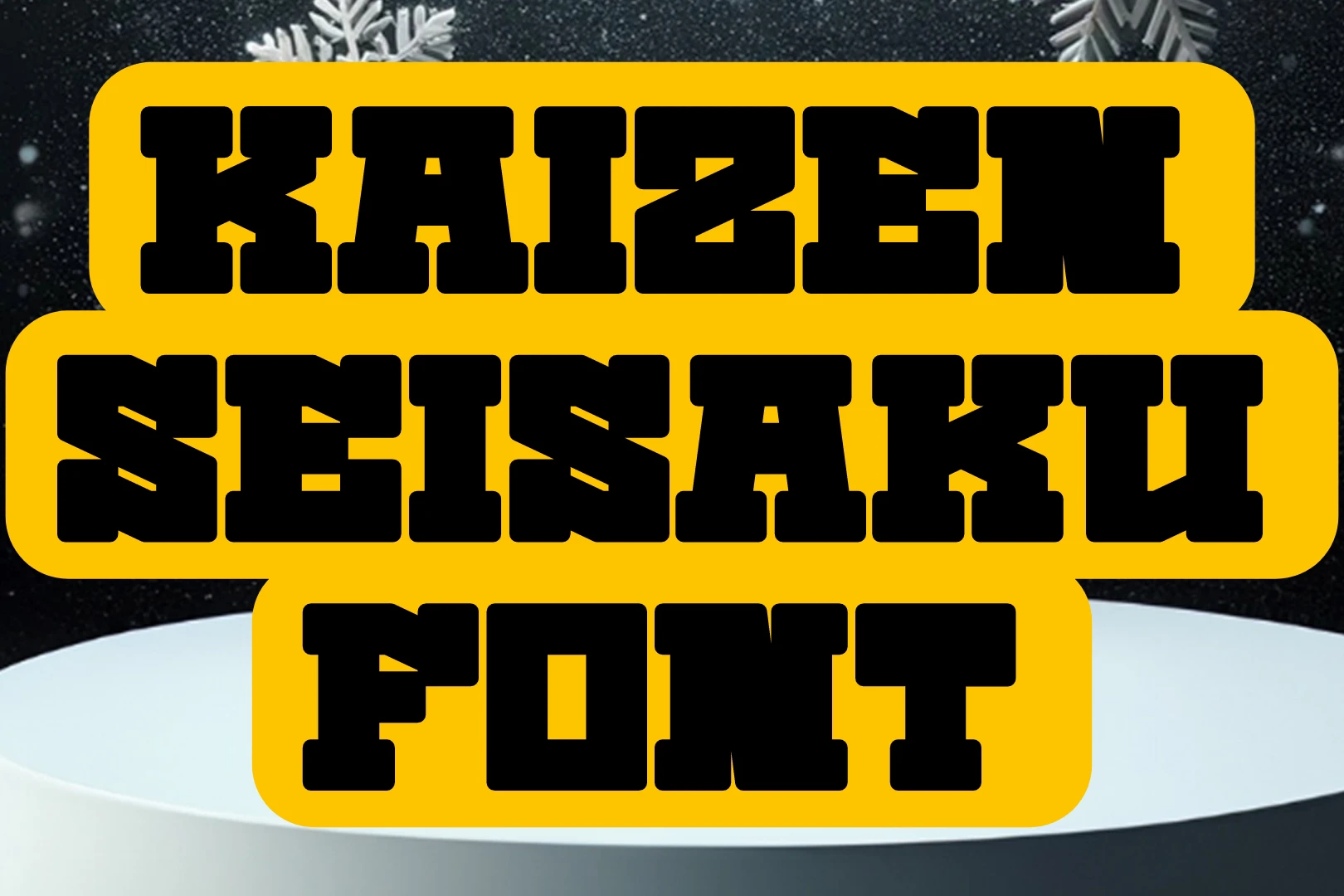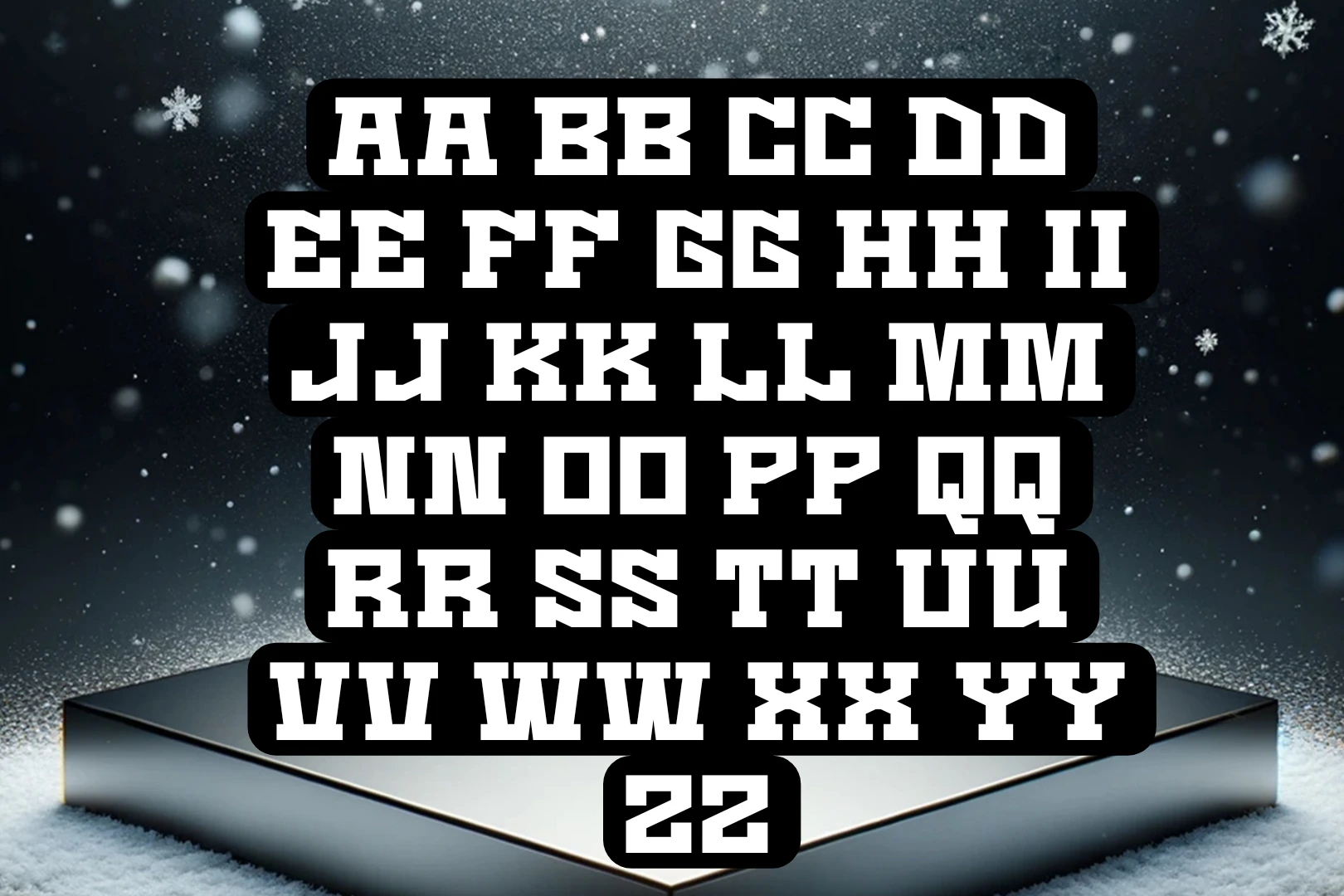
Kaizen Seisaku Font
Meet the super cool Kaizen Seisaku Font, created by the awesome designer Goma Shin. It’s in the fancy texture family, making it extra special. Goma Shin paid a lot of attention to making it look stylish and cool. This font is perfect for all kinds of creative stuff because it’s unique and stands out.
Whether you’re using Canva to make social media posts or Adobe photoshop for more intricate designs, It adds a touch of class to your creations, making them look even more awesome. This texture comes in different styles and weights, so you can pick the one that suits your project. It’s like choosing the perfect outfit for your design. Pair it with other fonts like The Chiquitas Font or StylishScript to create a winning combination.
It finds its place in diverse design applications, from branding and advertising to editorial design and digital media. Its fancy texture adds a touch of flair, making it suitable for projects that demand a creative and stylish visual presence. Whether used in headings, logos, or body text. This font brings a dynamic and eye-catching element to the forefront.
The Kaizen Seisaku Font family includes a range of weights, offering versatility in design. Designers can choose the weight that best suits their creative vision, from light and elegant to bold and impactful. The character set of this texture is comprehensive, encompassing uppercase and lowercase letters, numerals, punctuation marks, and special characters.
Who designed the Kaizen Seisaku Font?
It was expertly designed by the talented Goma Shin, showcasing a unique blend of creativity and sophistication in its aesthetic. Goma Shin’s attention to detail is evident, making the font a standout choice for diverse design projects.
What kind of texture is Kaizen Seisaku typeface?
It boasts a distinctive fancy texture, setting it apart in the world of typography. This unique textural quality contributes to its stylish and sophisticated aesthetic.
What is the category of Kaizen Seisaku texture?
This Font falls under the category of fancy texture fonts. Its design reflects a meticulous blend of creativity and elegance, making it a standout choice for various creative endeavors.
Where can I use the Kaizen Seisaku Font?
It is a versatile typeface that finds its place in a multitude of design applications. From branding and advertising to editorial design and digital media, this font adds a dynamic and eye-catching element to your projects. It also integrates seamlessly with popular design software like Canva, Illustrator, and adobe Photoshop offering a stylish touch to your creations on these platforms.
What weights are available in the Kaizen Seisaku Font family?
It offers a range of weights, including light, regular, and bold variations.
Are there specific design applications where Kaizen Seisaku typeface works best?
It is versatile and can be used in various design applications, including branding, editorial design, and digital media.
What character sets are included in Kaizen Seisaku Font?
The font includes a comprehensive character set, covering uppercase and lowercase letters, numerals, punctuation, and special characters.
Is Kaizen Seisaku Font suitable for web design?
Yes! it can be used for web design. You may also utilize it for making, logo designs, posters, banners, and many more.